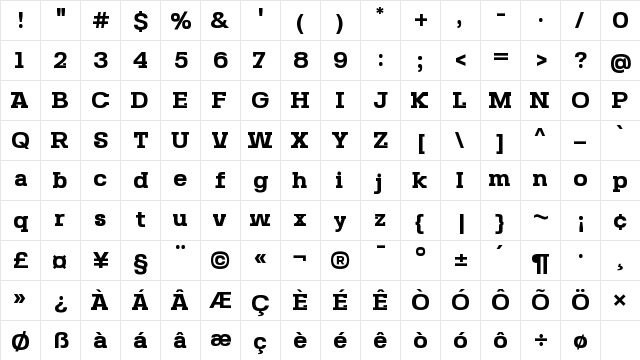
Seb Slab Bold
Design Context for Seb Slab Typeface
Seb Slab features prominent, blocky serifs that give it a confident, grounded presence — equally at home in editorial settings and bold branding work. Its bold stroke weight gives it real presence on the page.
Suited to magazines, political campaign materials, bold packaging, and any setting where authority matters.
Pro Tip: Use Seb Slab for headlines and subheadings where its slab serifs can make an impression. It also holds up well in mid-size body copy thanks to its sturdy construction.